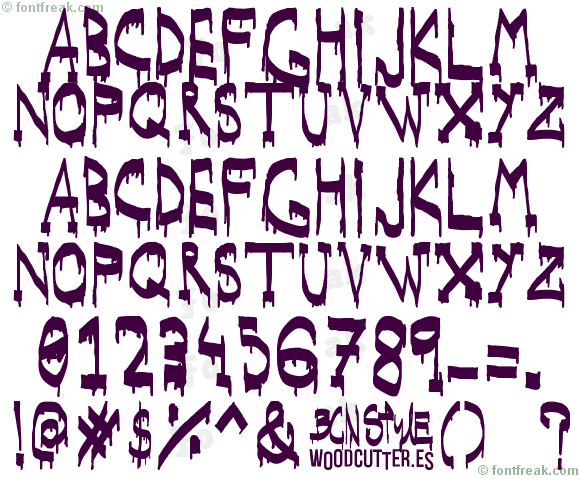
WOODCUTTER BCN Style
WOODCUTTER BCN Style is a striking display typeface designed by woodcutter Manero, embodying a unique blend of artistic flair and boldness. This font falls within the decorative category, characterized by its eye-catching, irregular letterforms that simulate a hand-carved wood effect. The stroke weight varies throughout the characters, with a pronounced contrast that enhances its expressive nature. The spacing between letters is slightly irregular, contributing to its organic feel, while decorative elements such as jagged edges and dripping motifs add an intriguing visual dynamic.
This font is ideal for a variety of creative applications. It shines in contexts that require a rustic or adventurous aesthetic, making it perfect for wedding invitations that aim for an outdoor theme, movie posters that evoke a sense of drama, and restaurant menus that wish to capture a homey, artisanal vibe. Additionally, it suits branding for craft breweries or artisanal product lines, allowing businesses to stand out in a crowded market.
Targeting graphic designers, small business owners, and content creators, WOODCUTTER BCN Style offers versatility and personality. Its unique design allows it to be utilized in both print and digital projects, appealing to those looking to make a bold statement or convey a specific theme.
What sets the WOODCUTTER BCN Style font apart is its ability to evoke emotion and narrative through typography. It captures the essence of handcrafted artistry while remaining accessible through its freeware license. With the WOODCUTTER BCN Style font free download, designers can bring a touch of creativity and originality to their projects without budget constraints, making it a must-have addition to any font library.